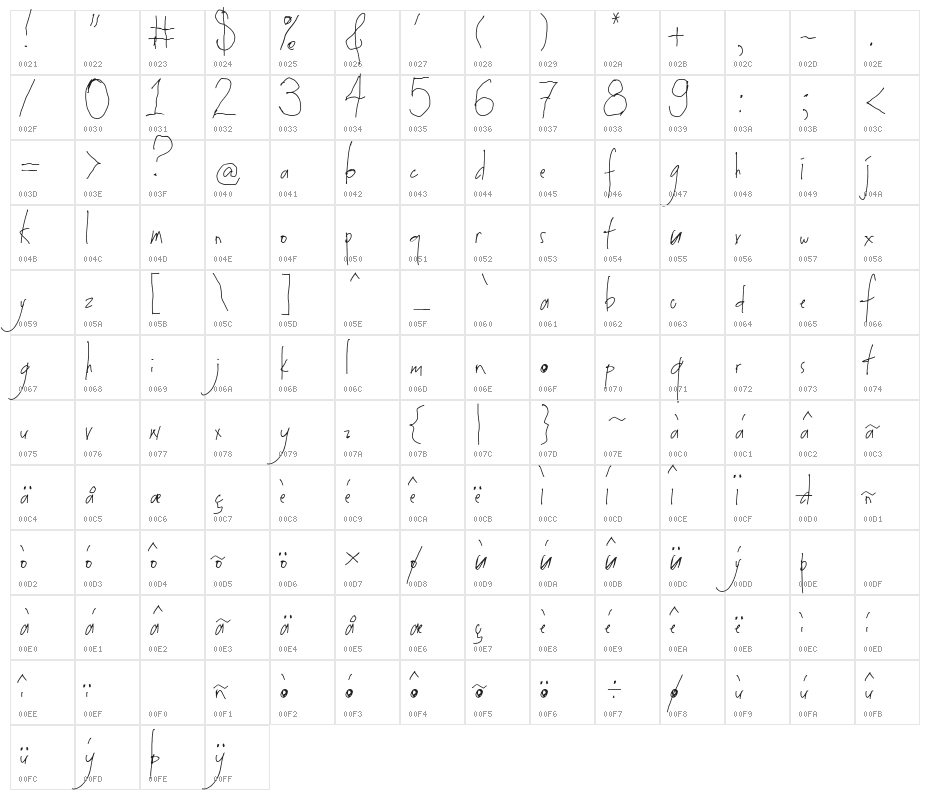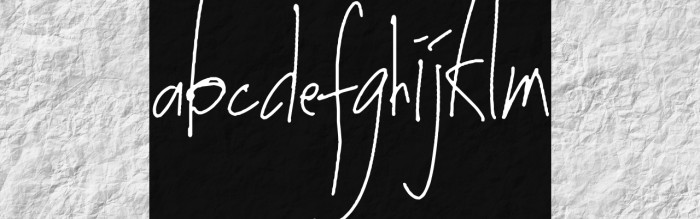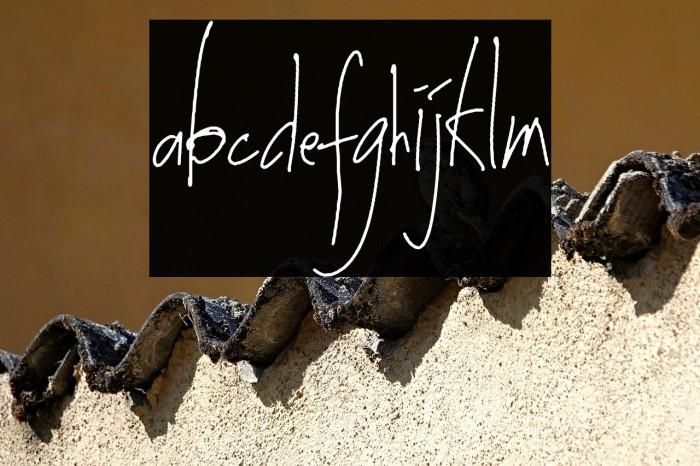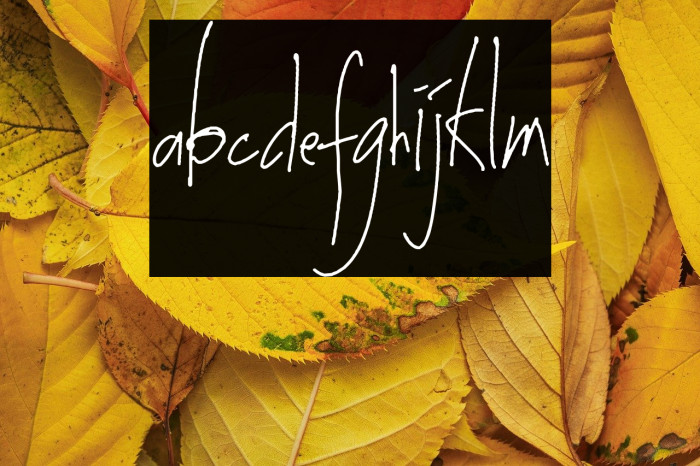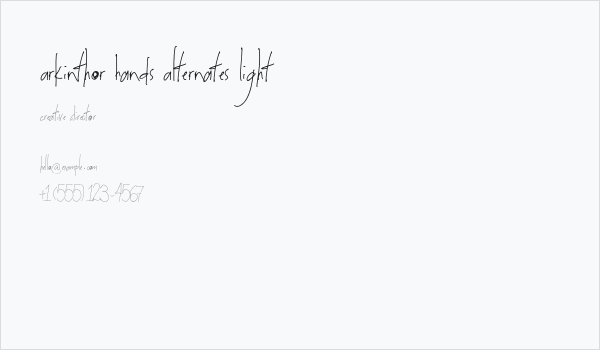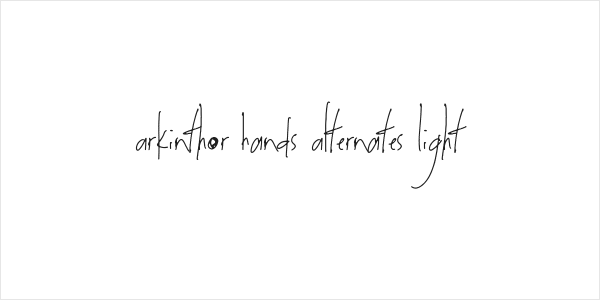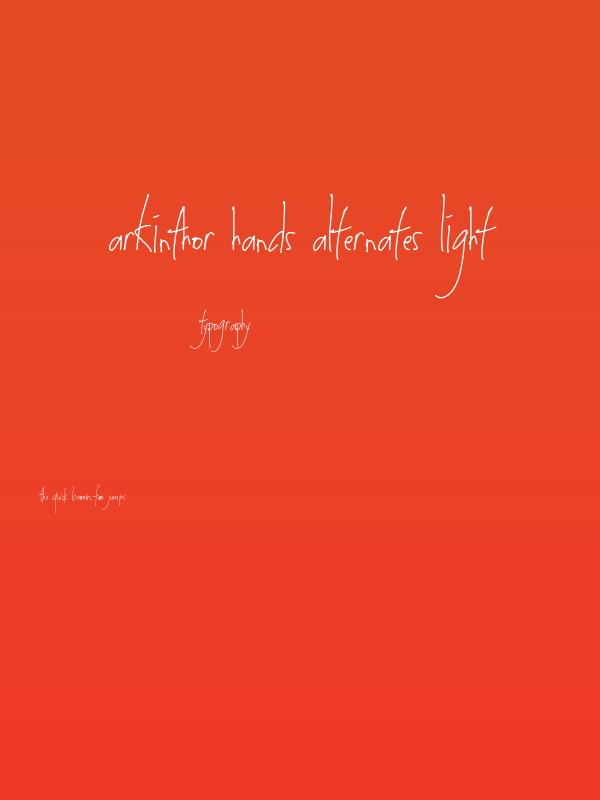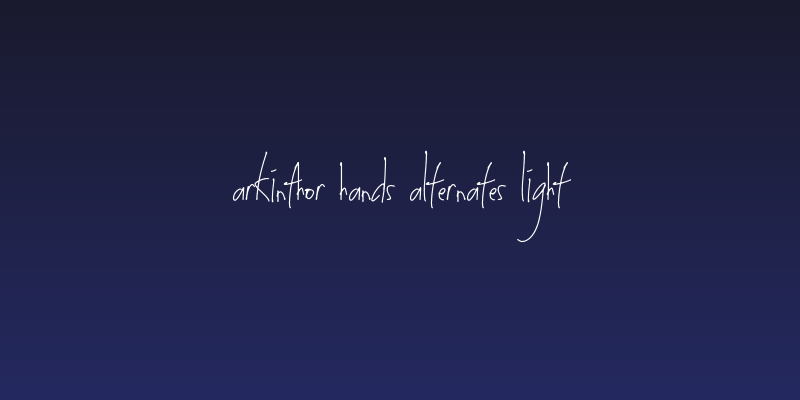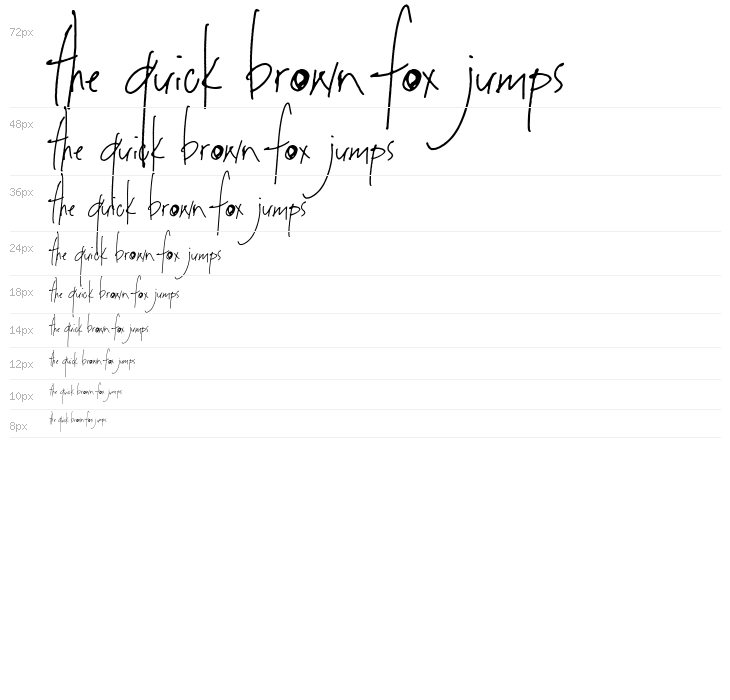
Arkinthor Hands Alternates Light Font
Arkinthor Hands Alternates Light Description
A light, handwritten font with irregular, sketchy strokes and tall ascenders, giving a spontaneous and artistic appearance. The characters are unevenly spaced and vary in height, mimicking natural handwriting with a casual, expressive feel.
| Overall Style | Decorative, Artistic, Casual |
| Use Case | Logos, Posters, Invitations, Artistic projects |
| Proposed Projects | Artistic posters, personal notes, creative branding, album covers, informal invitations. |